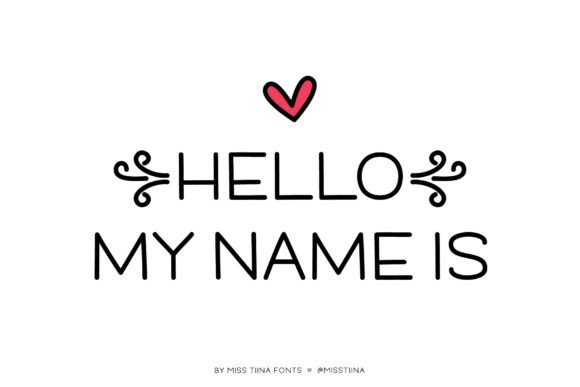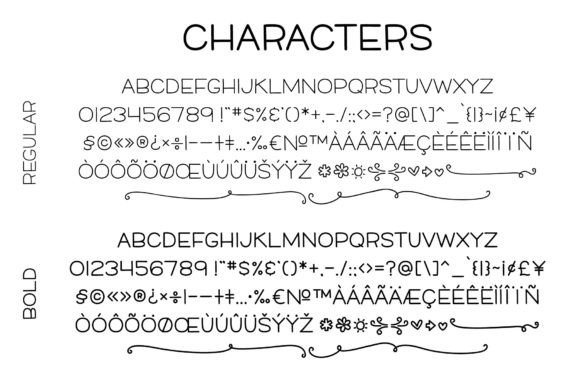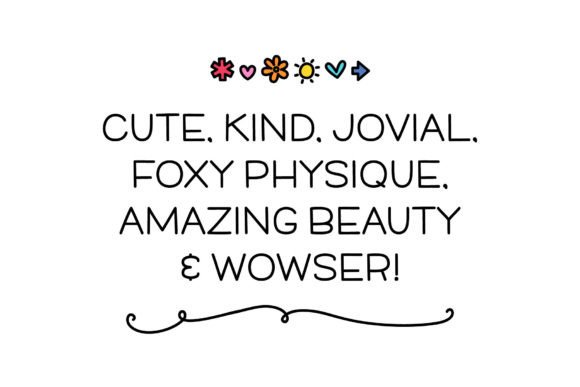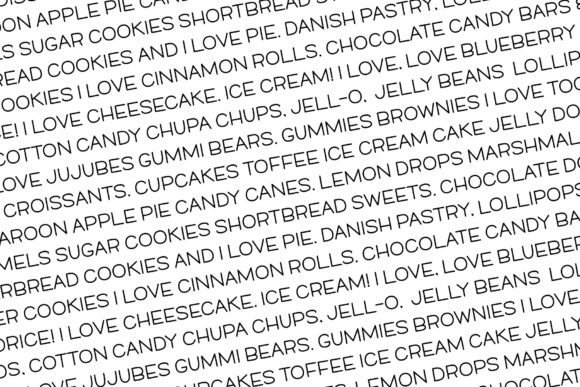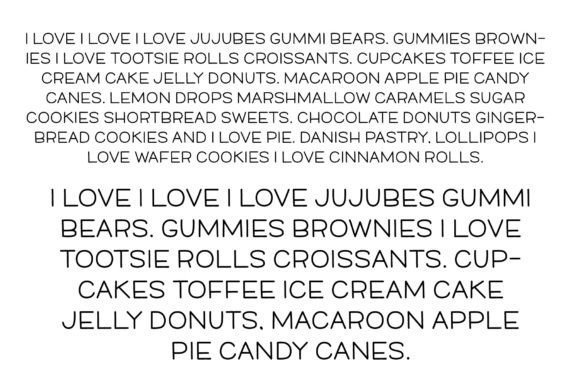
Hello My Name Is font is perfect for those handwritten notes of yours, stationery, planners, and much more! Includes 11 super cute doodles to spruce up your design projects!
Hello My Name is Font